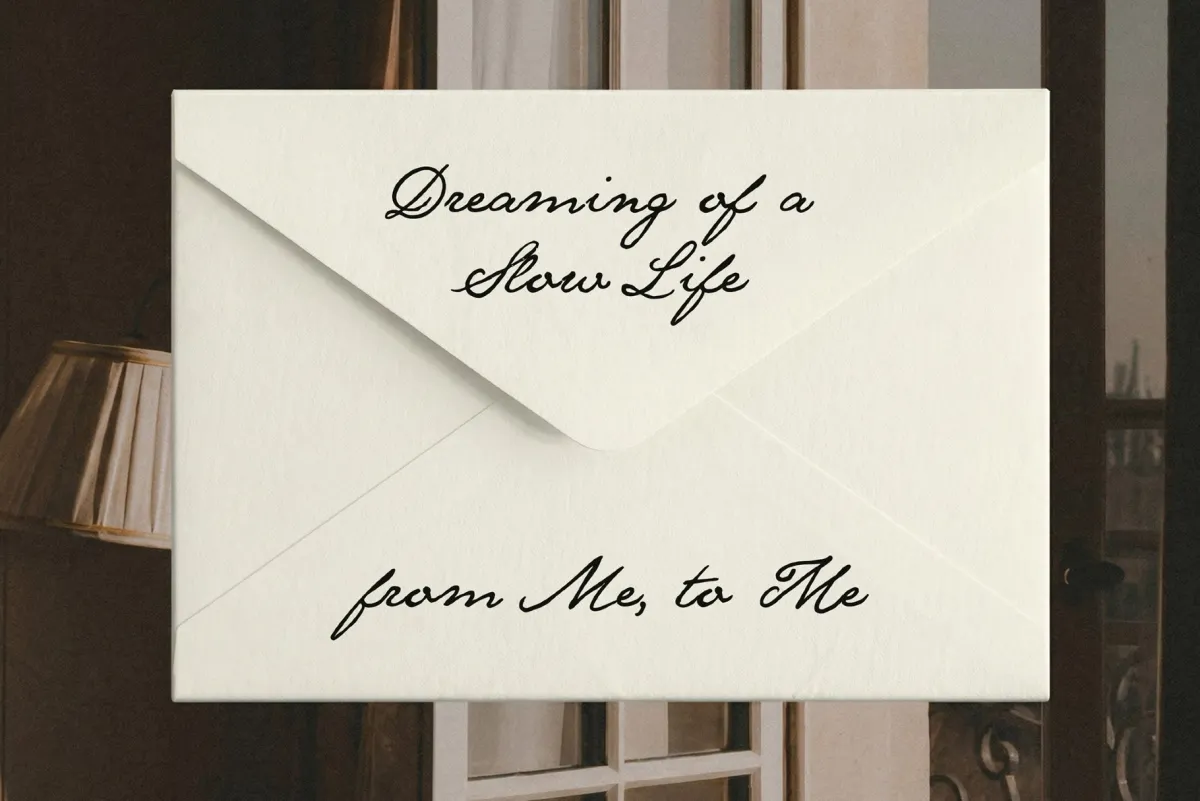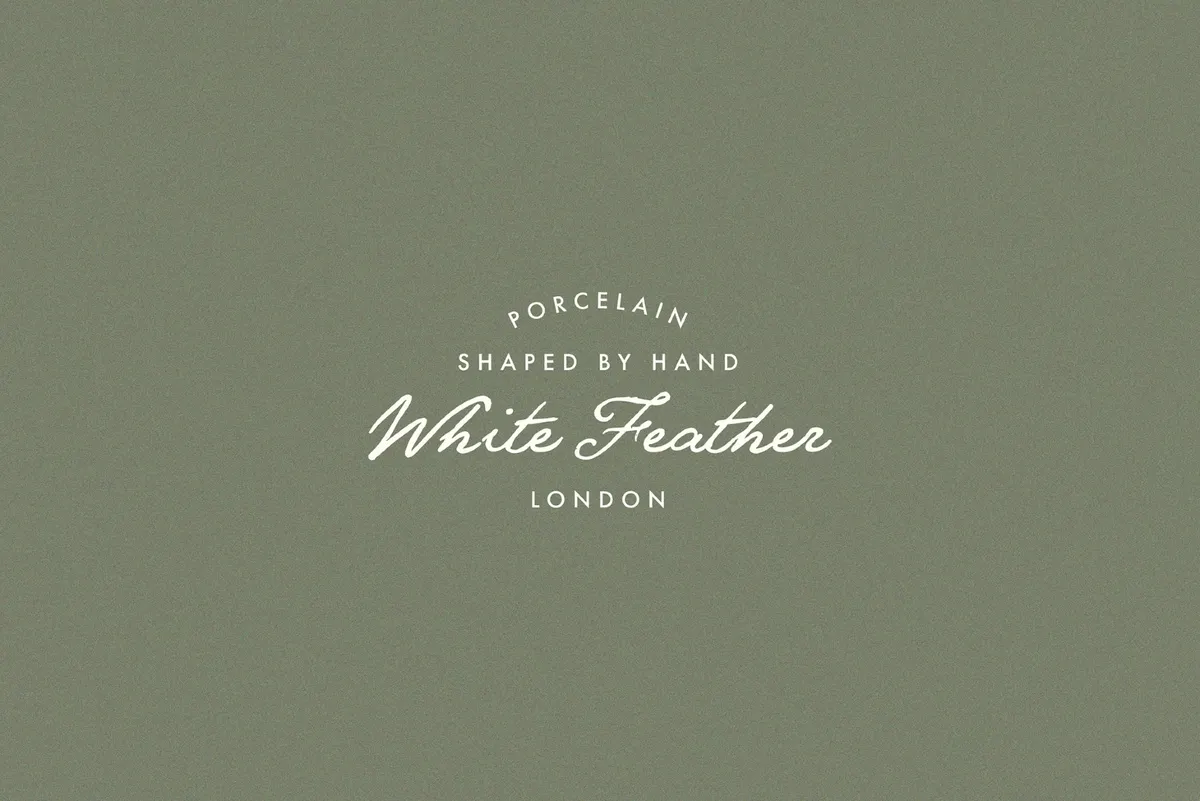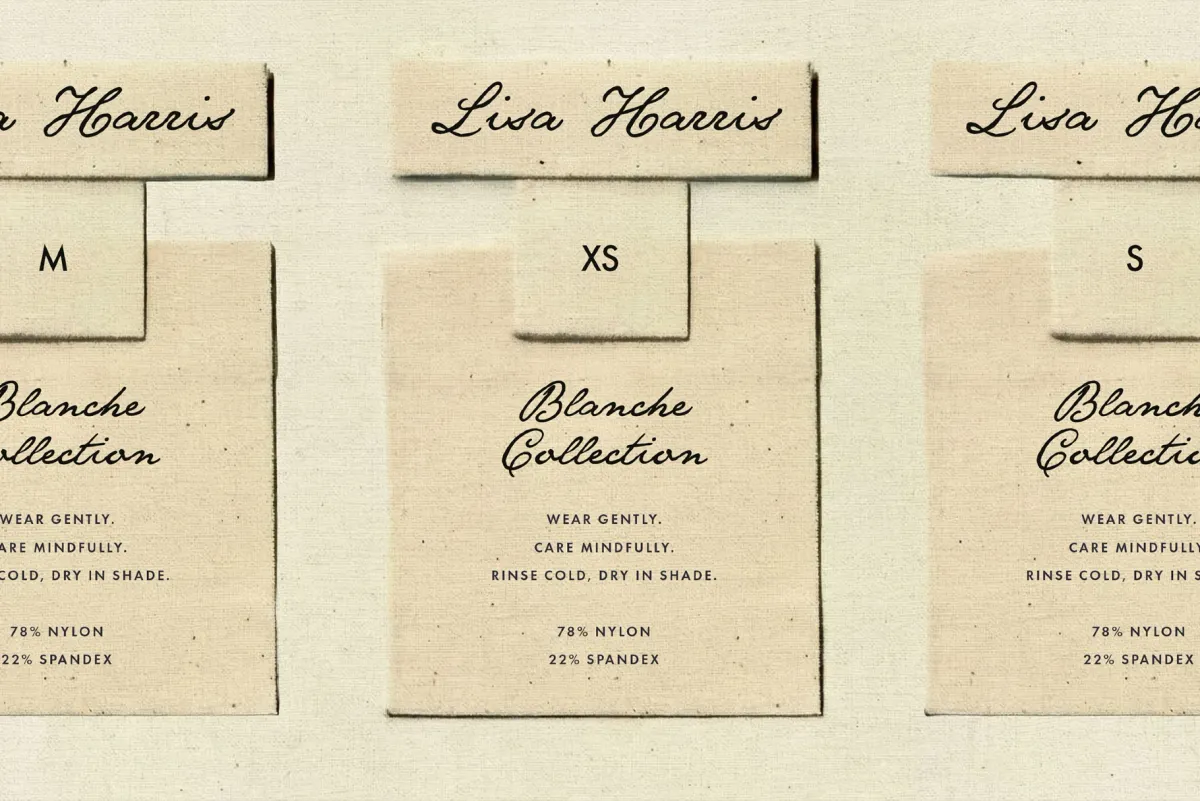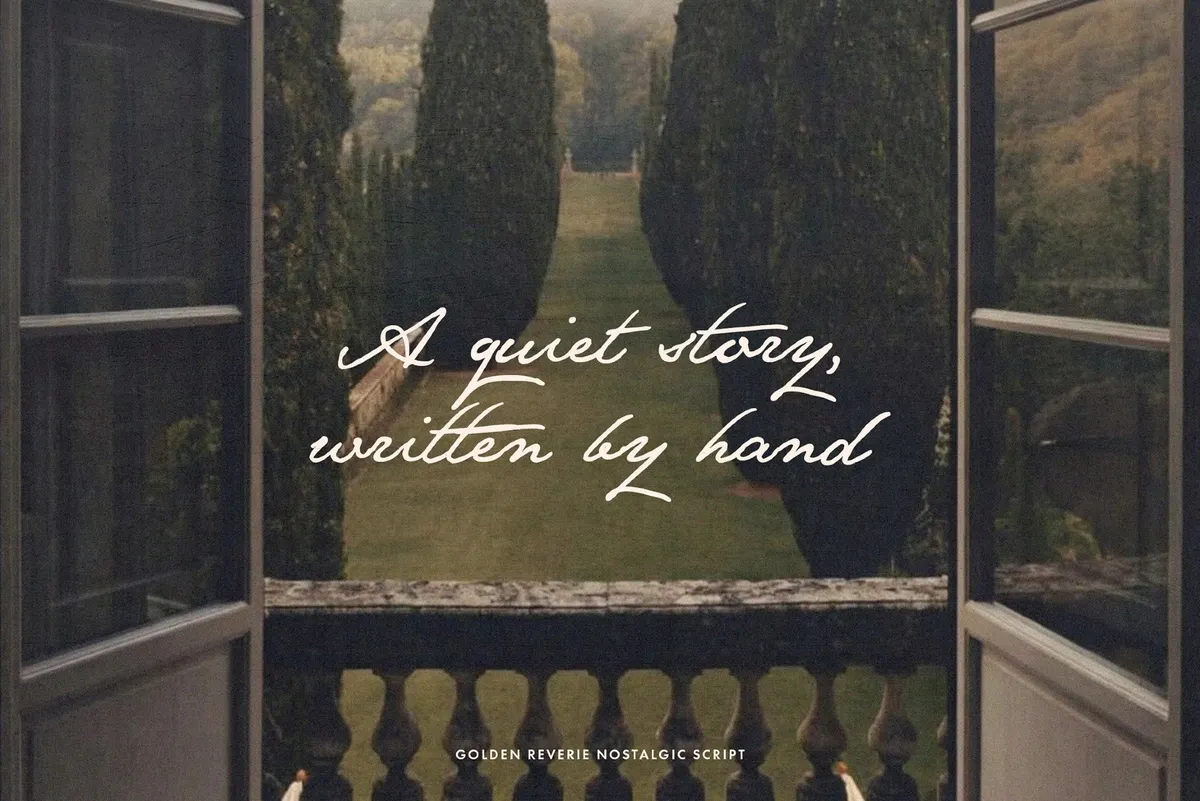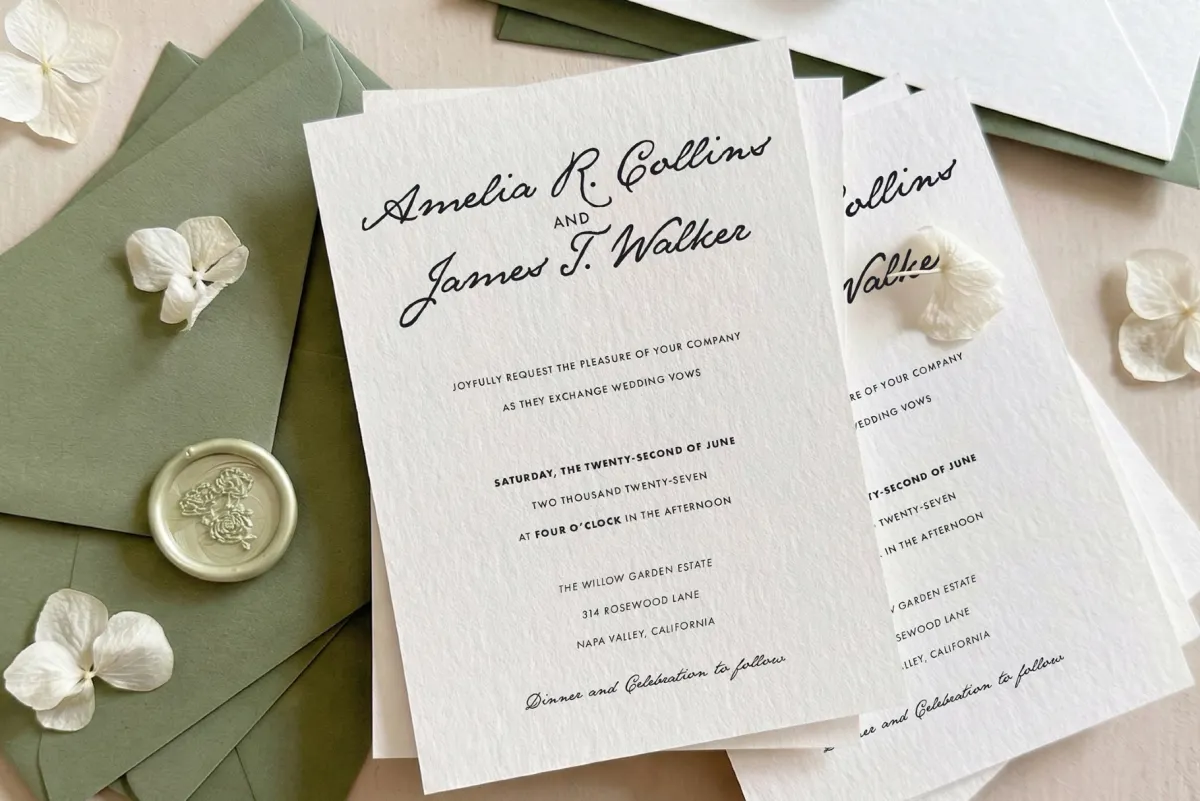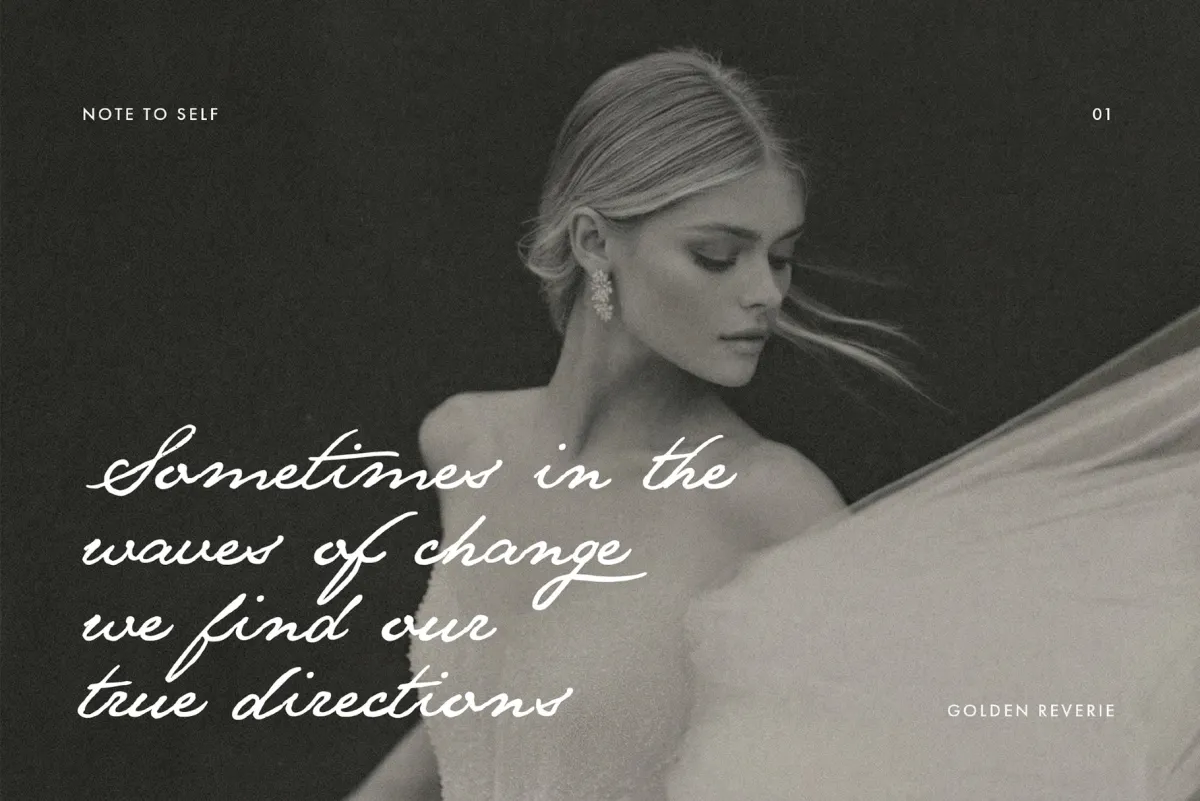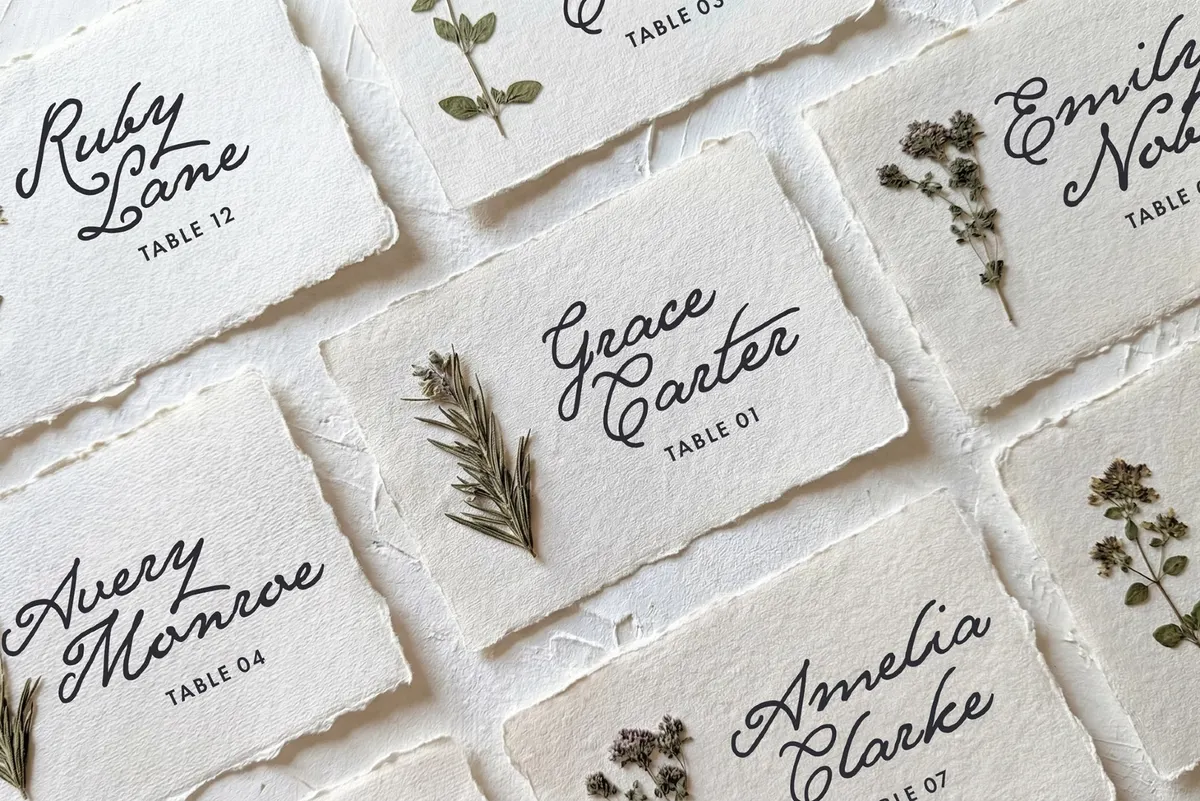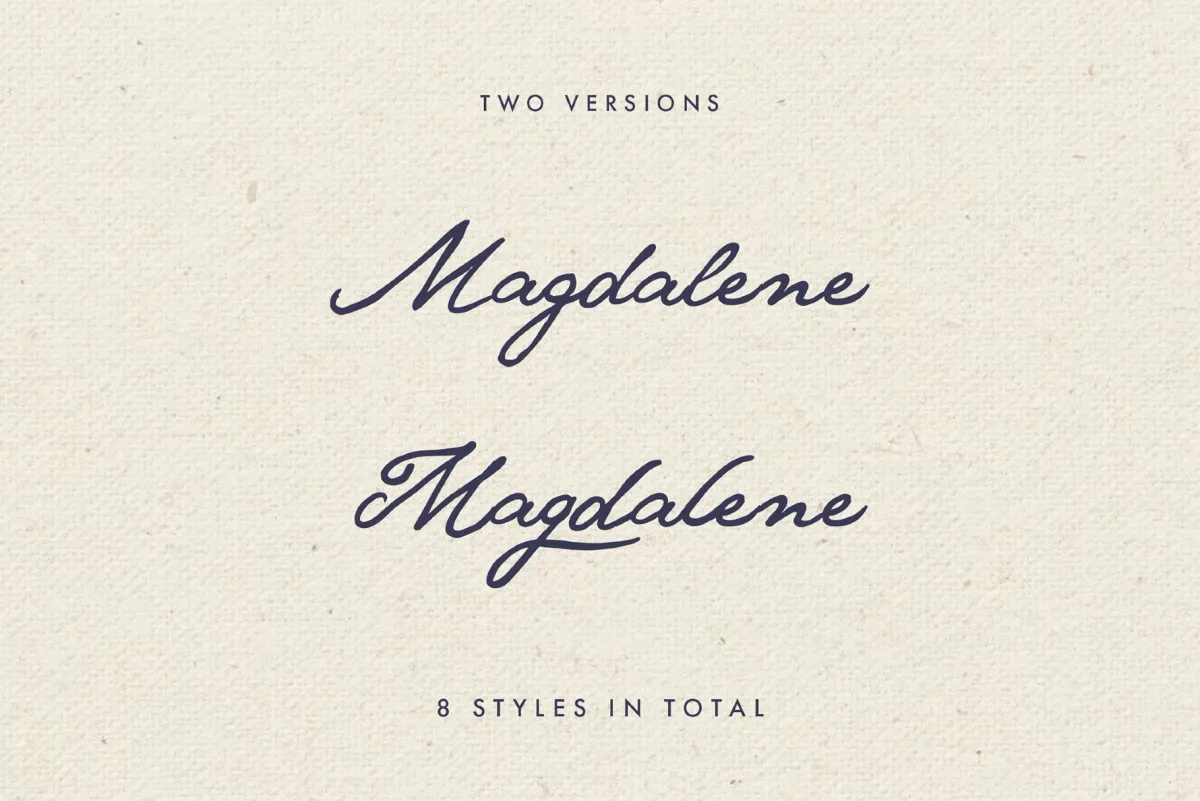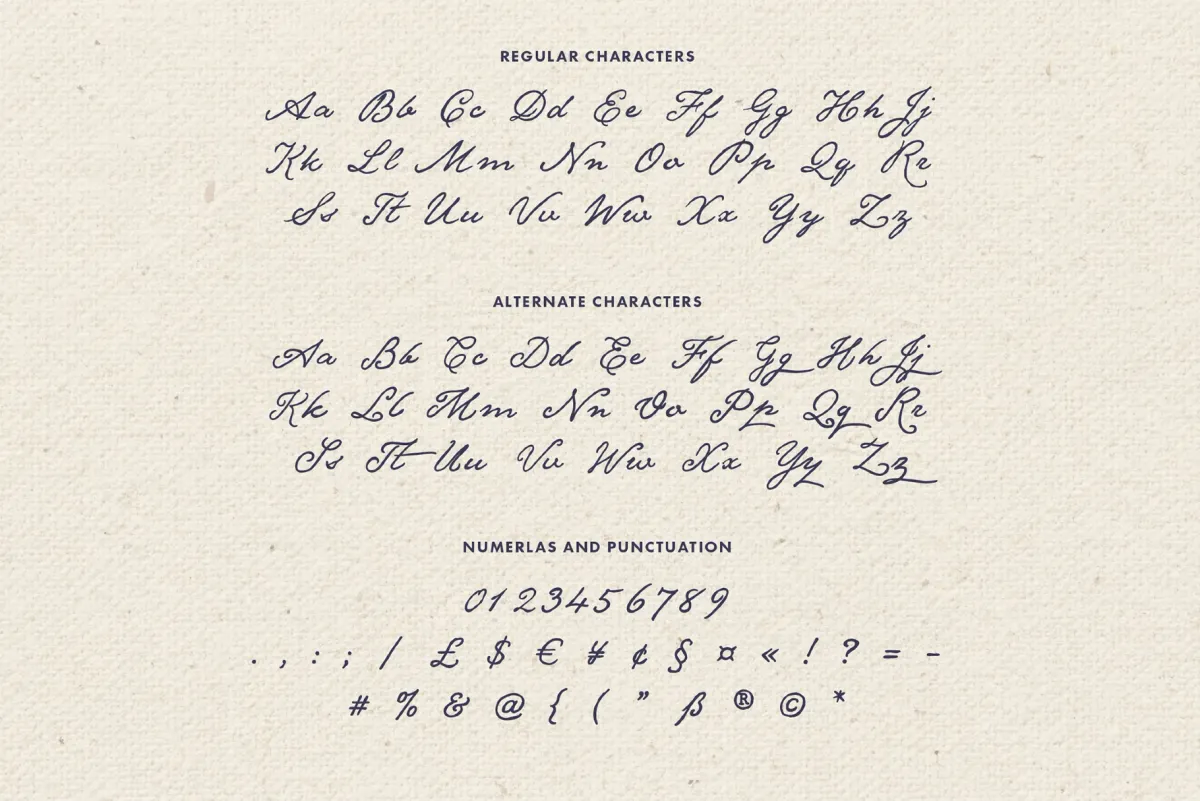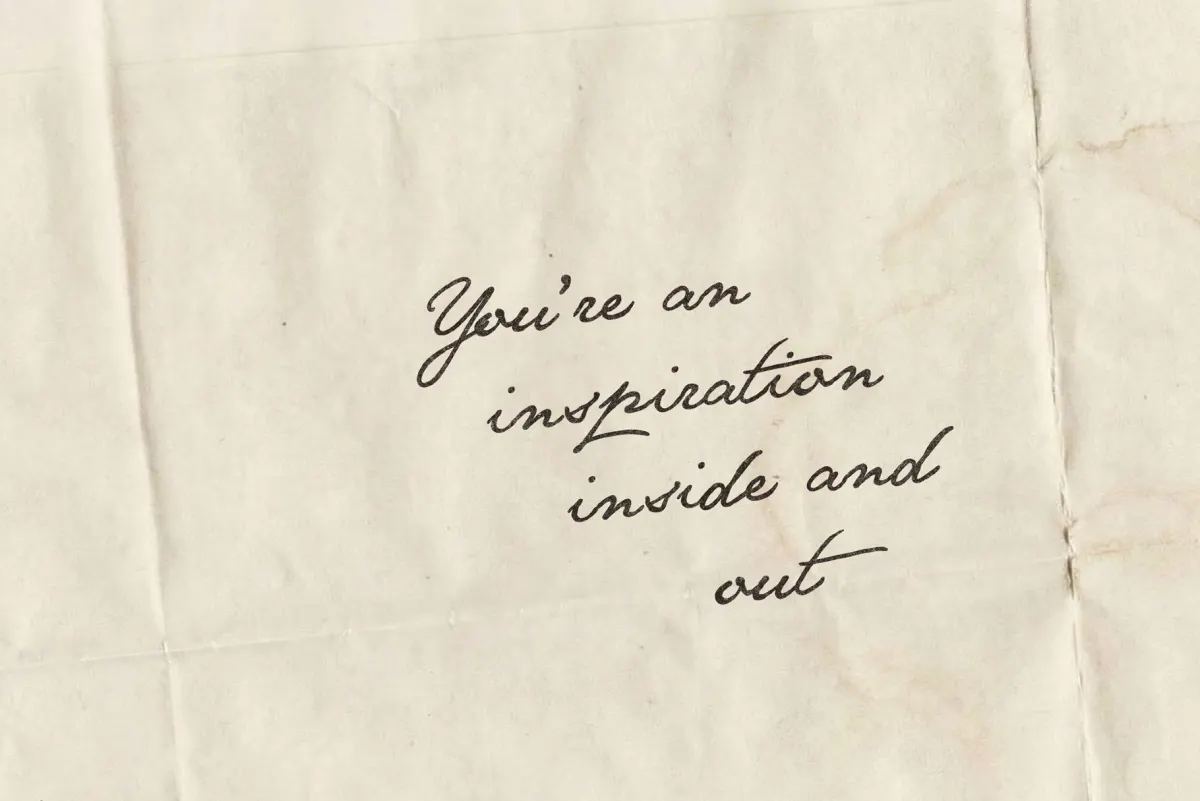
Golden Reverie — Nostalgic Script
Golden Reverie is a handwritten script with pointed-pen grace that draws on keepsake letters, stationery counters, and vintage editorial mastheads. Flowing strokes taper and swell with natural pressure, the rhythm is soft and fluid, yet controlled — the warmth and nostalgia at its purest.
The font suits emotional storytelling and elegant branding. Letters link with easy cadence, terminals finish with gentle sweep, and subtle alternation across styles lets you dial in tone — from delicate captions to bold signatures.
- Wedding suites — names in the script, dates in a companion serif, RSVP lines in small caps.
- Signature logos — primary wordmark for boutiques, secondary monogram for stamps and seals.
- Editorial features — story openers, pull quotes, recipe intros, bylines.
- Packaging — perfume boxes, chocolate sleeves, candle jars, apothecary labels.
- Beauty and skincare — glass dropper labels, foil-stamped lids, care cards.
- Stationery brands — notecard headings, envelope flaps, rubber stamps.
- Social templates — quote cards, carousel covers, story highlights.
- E-commerce — hero headlines, collection badges, gift-wrap notes.
- Personal branding — email signatures, invoices, note headers.
- 8 styles: Regular, Alt, Oblique, Alt Oblique, Bold, Alt Bold, Bold Oblique, Alt Bold Oblique.
- Uppercase and lowercase letters, numbers, and punctuation.
- Full multilingual support for Western European languages.